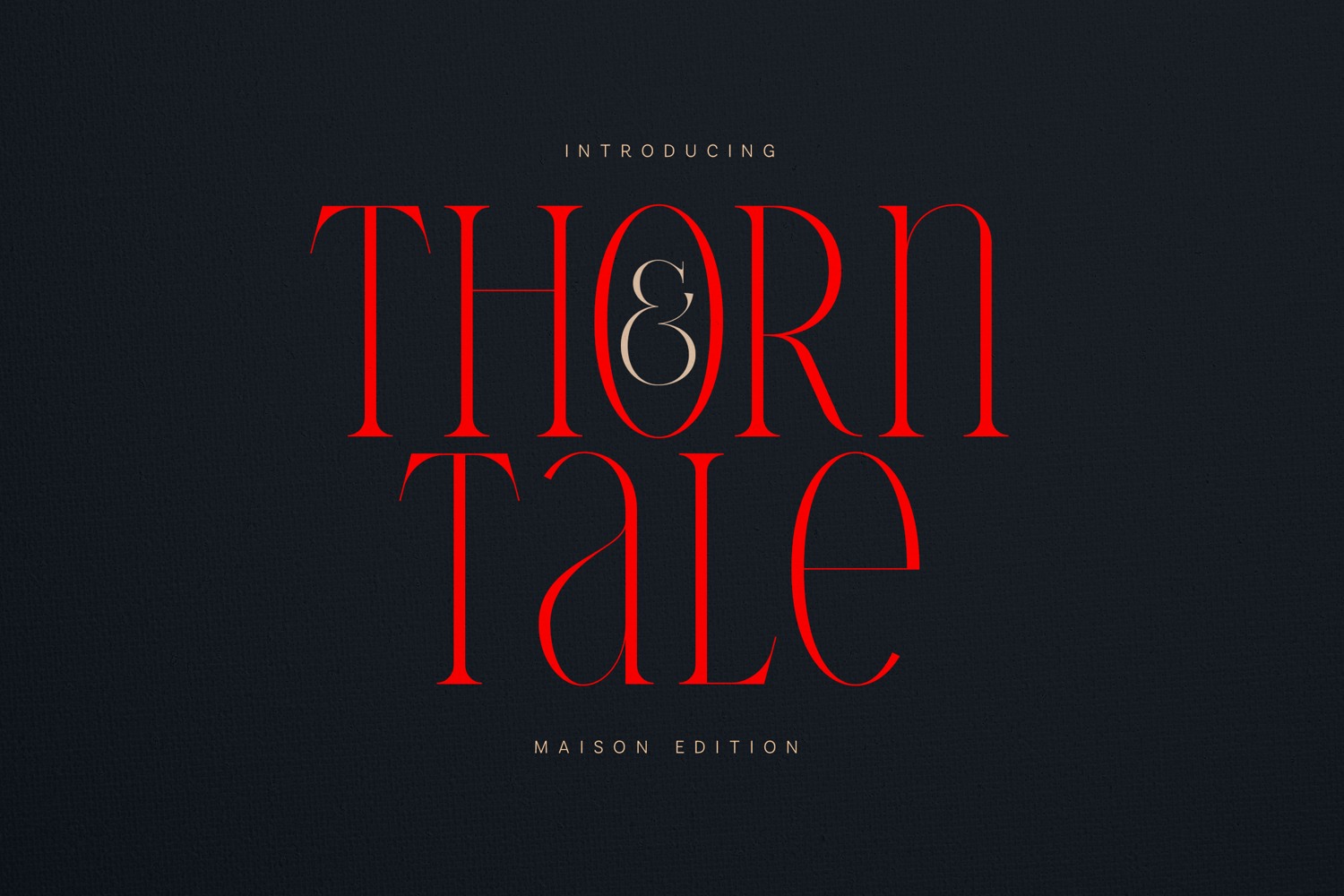
Thorn Tale Elegant Modern Serif Font
Thorn Tale is a refined modern serif typeface designed for luxury branding, fashion editorials, and high-end visual identities. It combines sharp contrast, sculpted curves, and sophisticated letterforms to create a bold yet graceful presence.
This font is built for designers who want elegance with attitude — perfect for logos, magazine layouts, packaging, beauty brands, typography posters, and statement headlines.
The dramatic high-contrast strokes and unique character details make Thorn Tale ideal for:
• Fashion branding
• Luxury packaging
• Editorial design
• Logo design
• Wedding invitations
• Social media graphics
• Modern poster typography
• Uppercase & Lowercase Letters
• Special Characters
Thorn Tale is crafted to stand out in bold compositions while remaining refined in minimal layouts. It performs beautifully in both light and dark backgrounds, giving designers full creative flexibility.
Designed for modern creators who value elegance, structure, and timeless sophistication.